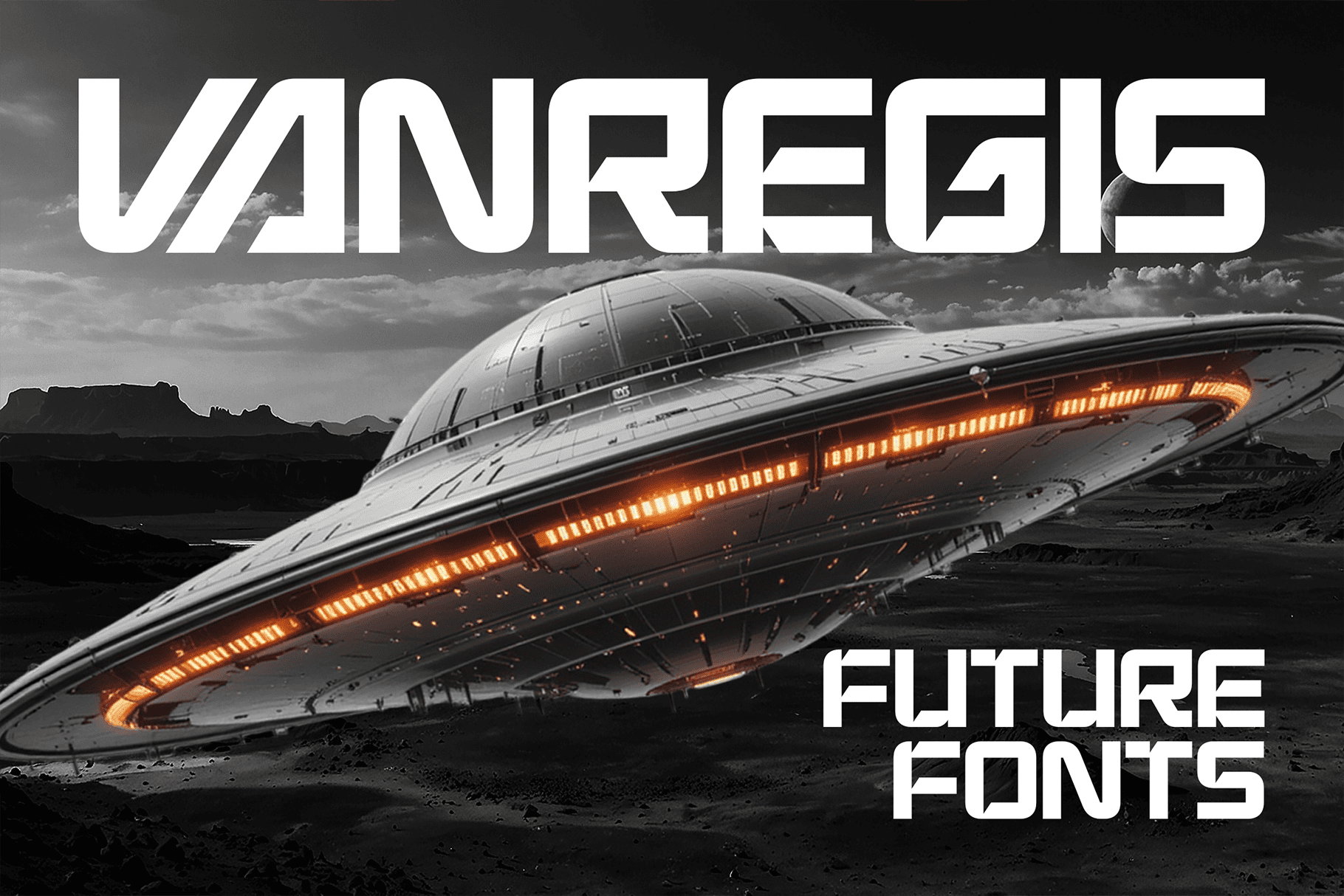
Vanregis - Futuristic Fonts
Are you ready to transport your audience to another dimension? Introducing Vanregis, the groundbreaking font meticulously crafted to embody the sleek, enigmatic, and awe-inspiring aesthetic of the future. Inspired by the iconic sci-fi blockbusters, epic comics, immersive games, and futuristic toys that have shaped generations' imaginations, Vanregis isn't just a typeface—it's a portal to the unknown.
Vanregis is engineered for impact. Its remarkably unique and bold letterforms command attention, fusing sharp angles with innovative cuts to create a sense of advanced technology and cutting-edge design. This is the font that speaks of interstellar journeys, cyberpunk skylines, and untold adventures, giving your projects an unparalleled edge that's both modern and timeless.
Why Vanregis is Your Gateway to Futuristic Design:
Sci-Fi Inspired & Visionary: Directly taps into the rich visual language of science fiction, instantly conveying innovation, mystery, and progress.
Unique & Bold Aesthetics: Each character is a statement, designed to be distinctive and powerful, ensuring your message is seen and remembered.
Versatile for High-Impact Projects:
Logo Design: Forge iconic, forward-thinking brand identities that stand apart in any galaxy.
Branding: Build a futuristic persona for tech companies, gaming studios, or cutting-edge enterprises.
Movie Titles & Posters: Create unforgettable cinematic experiences that hint at epic sagas.
Album Artwork: Design covers that resonate with electronic, experimental, or sci-fi themed music.
Series & Game Titles: Give your digital universes and streaming sensations the definitive futuristic look they deserve.
Advertising Campaigns, UI/UX, Book Covers, Event Graphics, and anything else you need to "future up" your design!
Don't let your designs be stuck in the past.